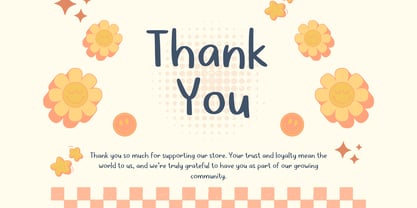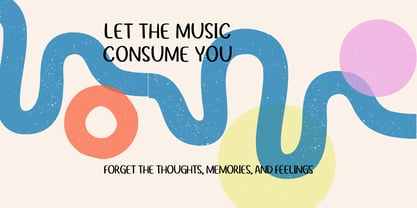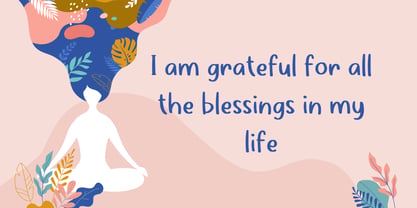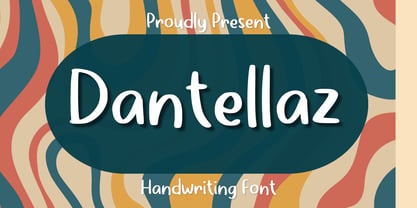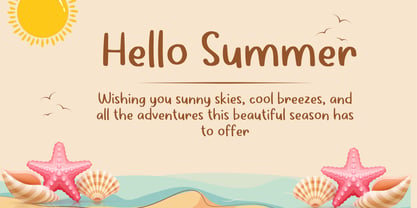
Dantellaz
by Aisyah
The Dantellaz Font Family was designed by Nur Aiysah Amalia and published by Aisyah. Dantellaz contains 1 styles. More about this family
"Dantellaz" effortlessly strikes a balance between whimsical charm and modern sophistication-- a unique handwriting font sure to captivate. Ideal for adding a personal touch to branding initiatives, enhancing the visual appeal of business documents, or elevating the energy in lengthy texts, 'Dantellaz' effortlessly infuses any creative project with its distinctive vibe. Embrace the stylistic versatility offered by 'Dantellaz' and redefine the boundaries of traditional typography.
Designers: Nur Aiysah Amalia
Foundry: Aisyah